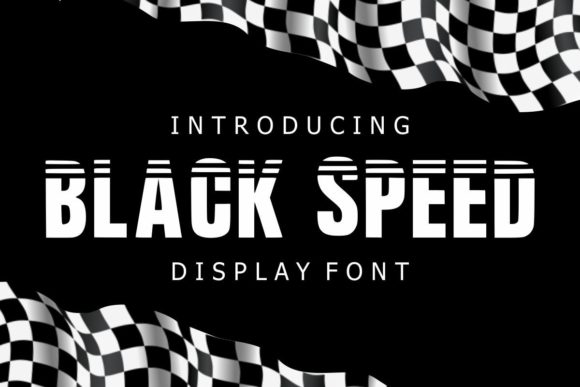
Get ready to ignite your creative engine and shift into high gear with Black Speed Font, the ultimate display font that embodies the essence of speed and power. This electrifying font is meticulously crafted to capture the dynamic energy of fast-paced motion, making it the perfect choice for car enthusiasts, automotive designers, and anyone seeking to evoke a sense of adrenaline in their designs.
Black Speed Font is not just a font; it's a visual symphony that dances across your screens with its bold strokes and captivating curves. Its dynamic effect creates the illusion of movement, drawing the viewer's attention and leaving a lasting impression. Whether you're designing posters, logos, monograms, or any other project that demands attention, Black Speed Font is your secret weapon.
With its unique charm and unwavering boldness, Black Speed Font has the potential to become your go-to font for all automotive-related projects. Its powerful presence is sure to leave a lasting impression on your audience, whether they're car enthusiasts or simply appreciate the beauty of dynamic typography.
So, buckle up, hit the gas, and let Black Speed Font take you on a thrilling ride. Its energetic and distinctive style is guaranteed to leave your designs in the fast lane.
Key features of Black Speed Font:
* Bold and captivating display font
* Dynamic effect that creates the illusion of movement
* Perfect for headlines, posters, logos, and monograms
* Ideal for automotive-related projects
* Potential to become your favorite go-to font